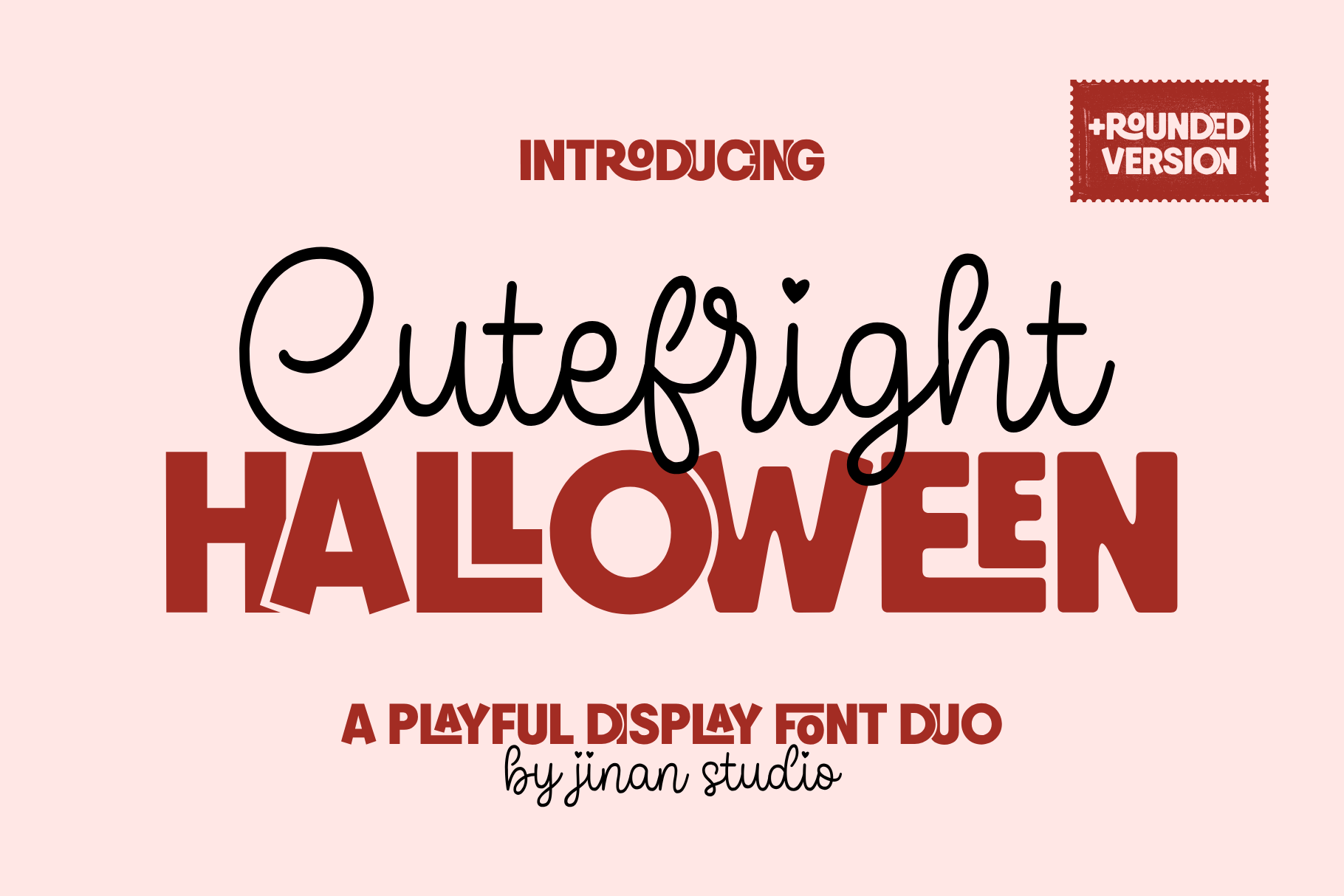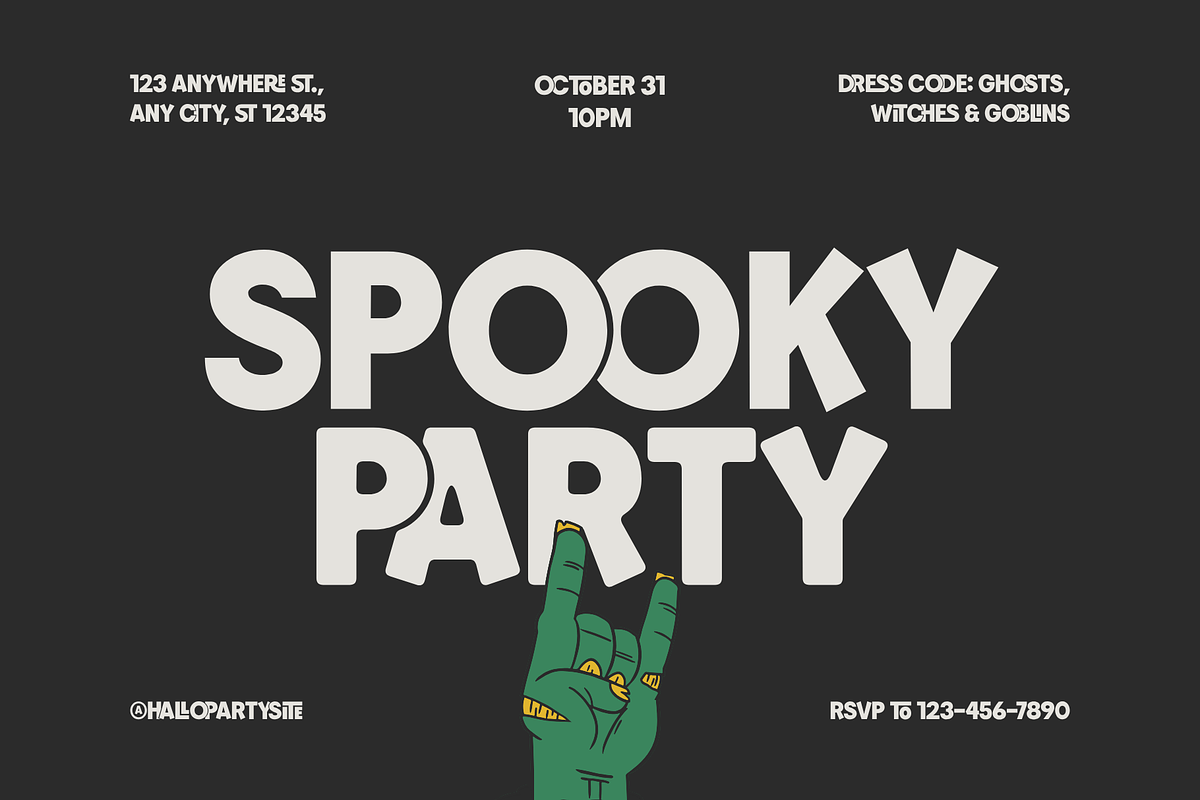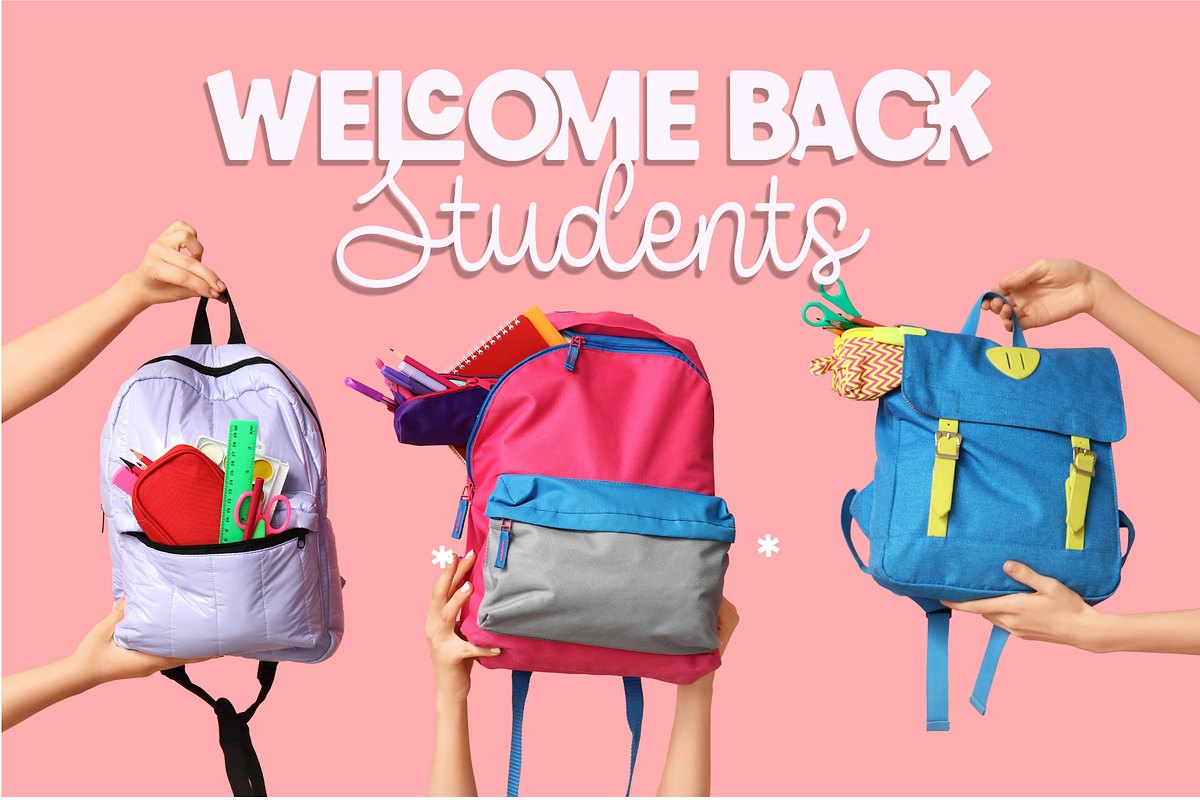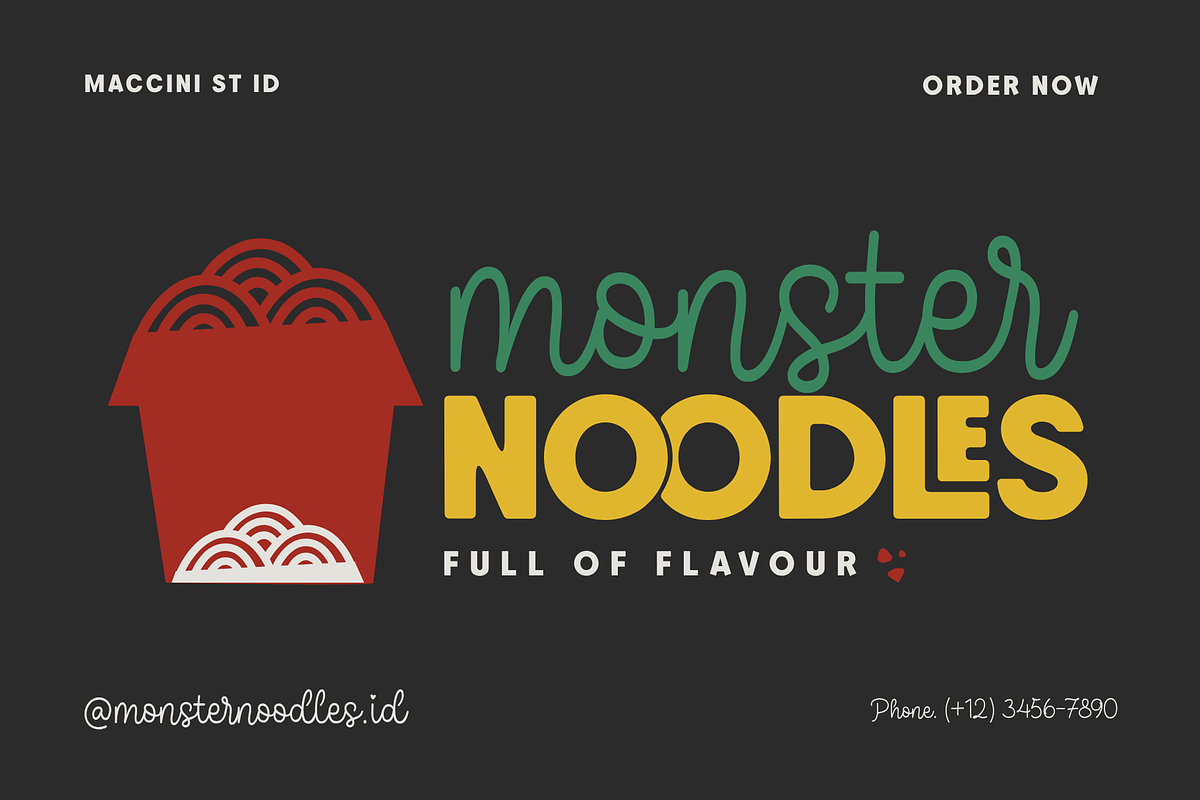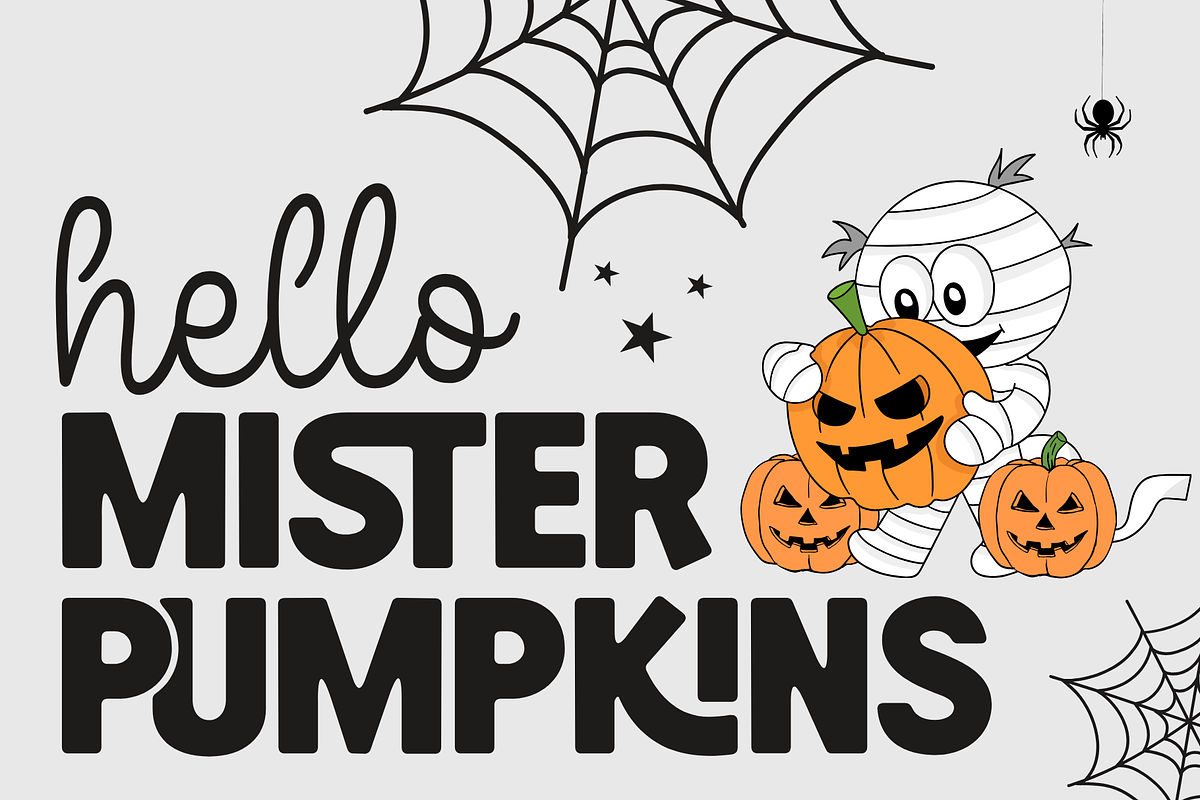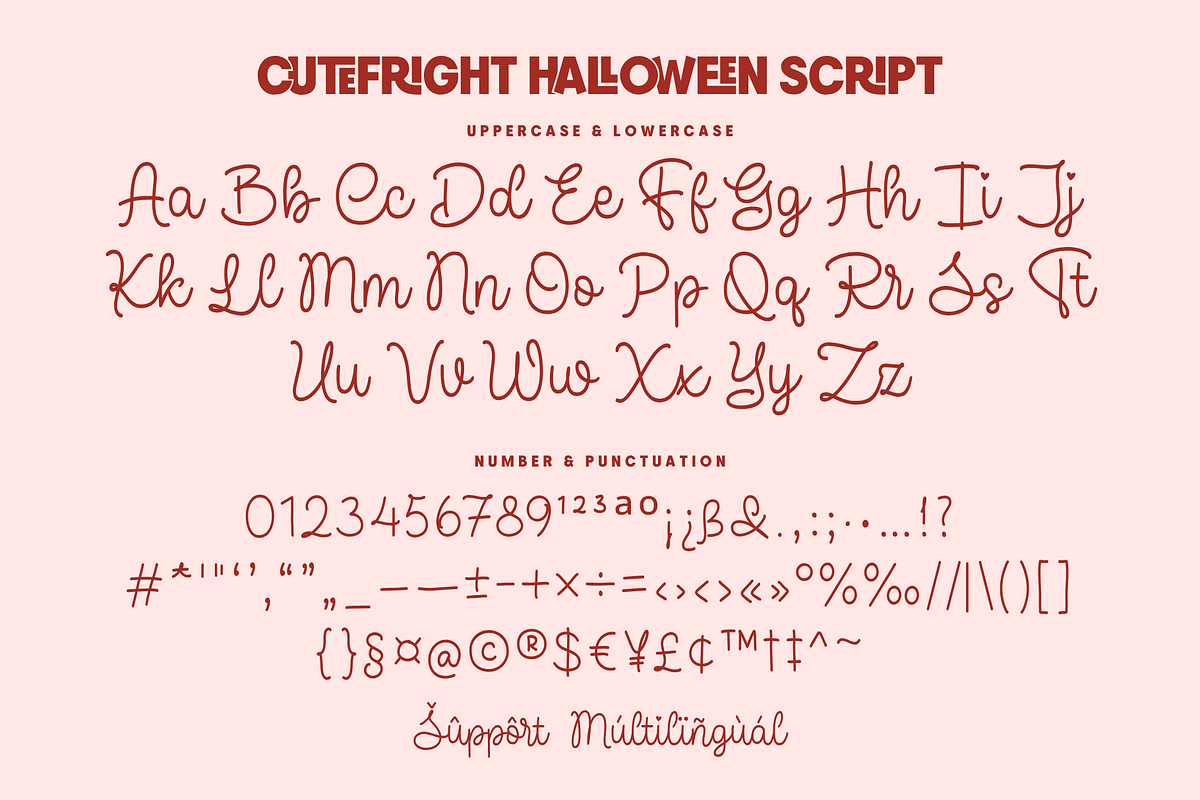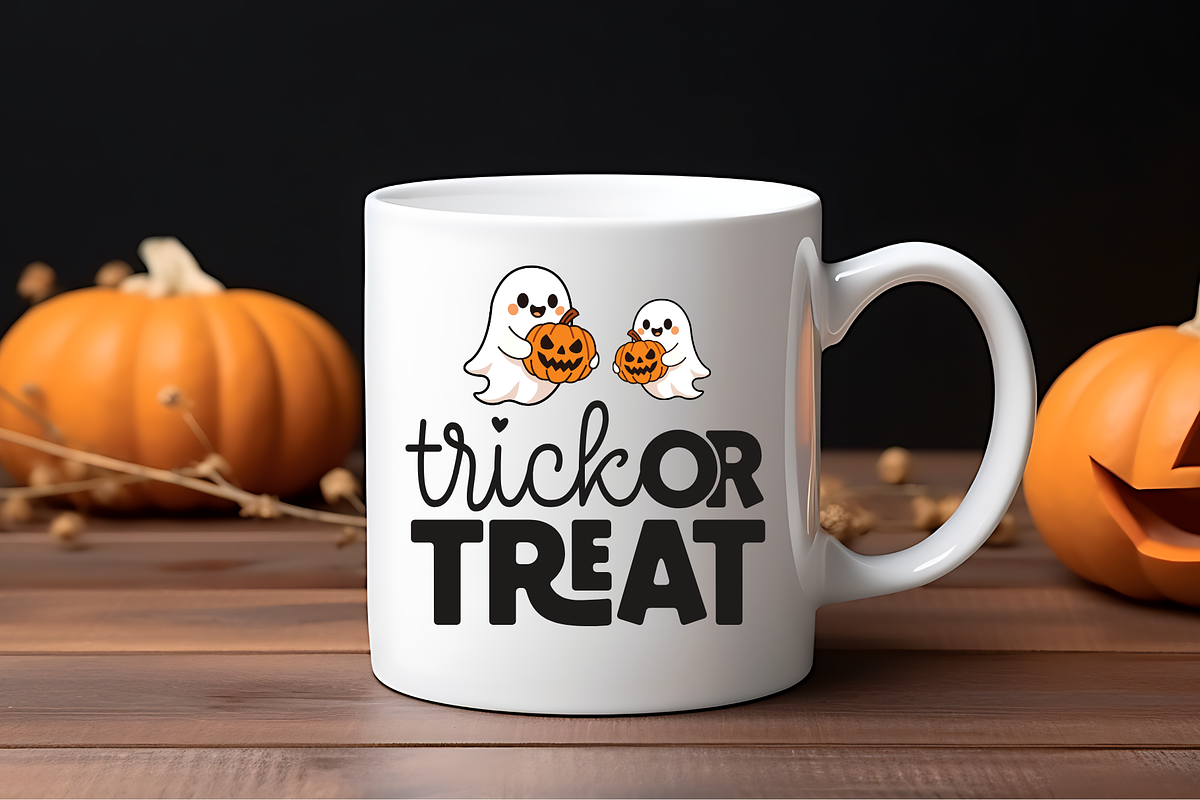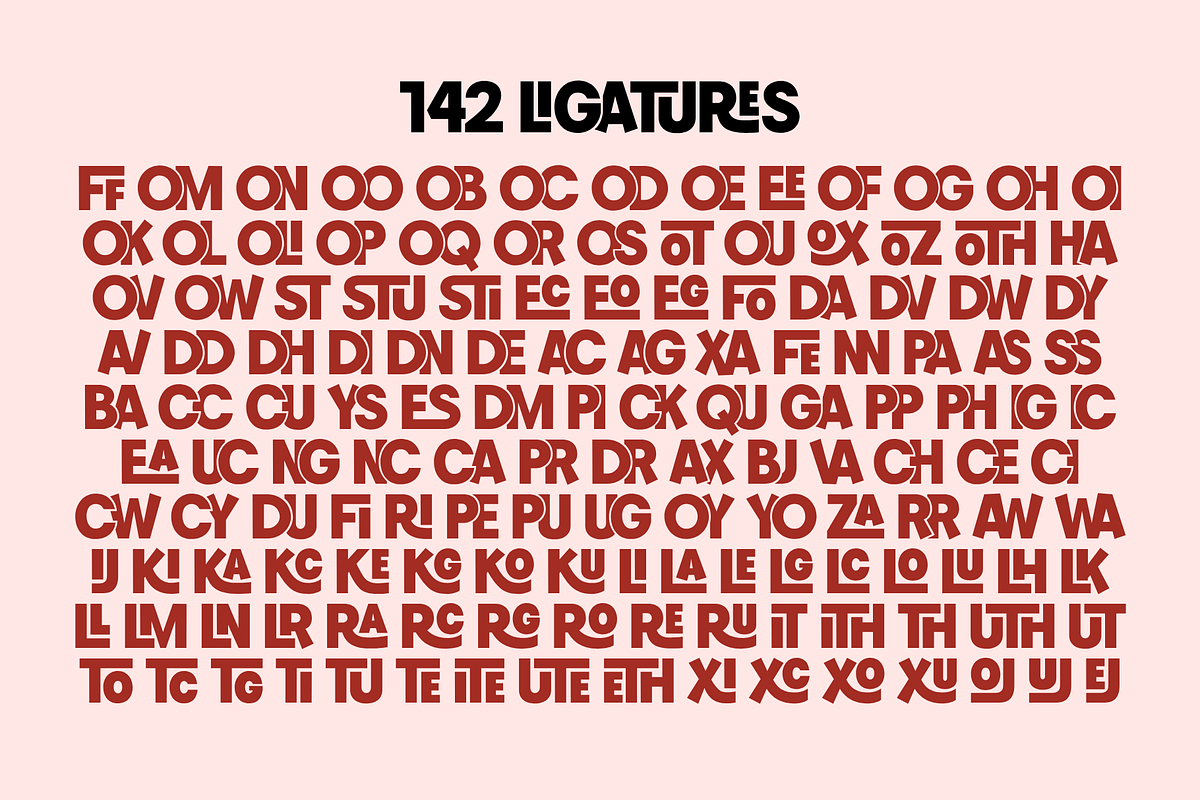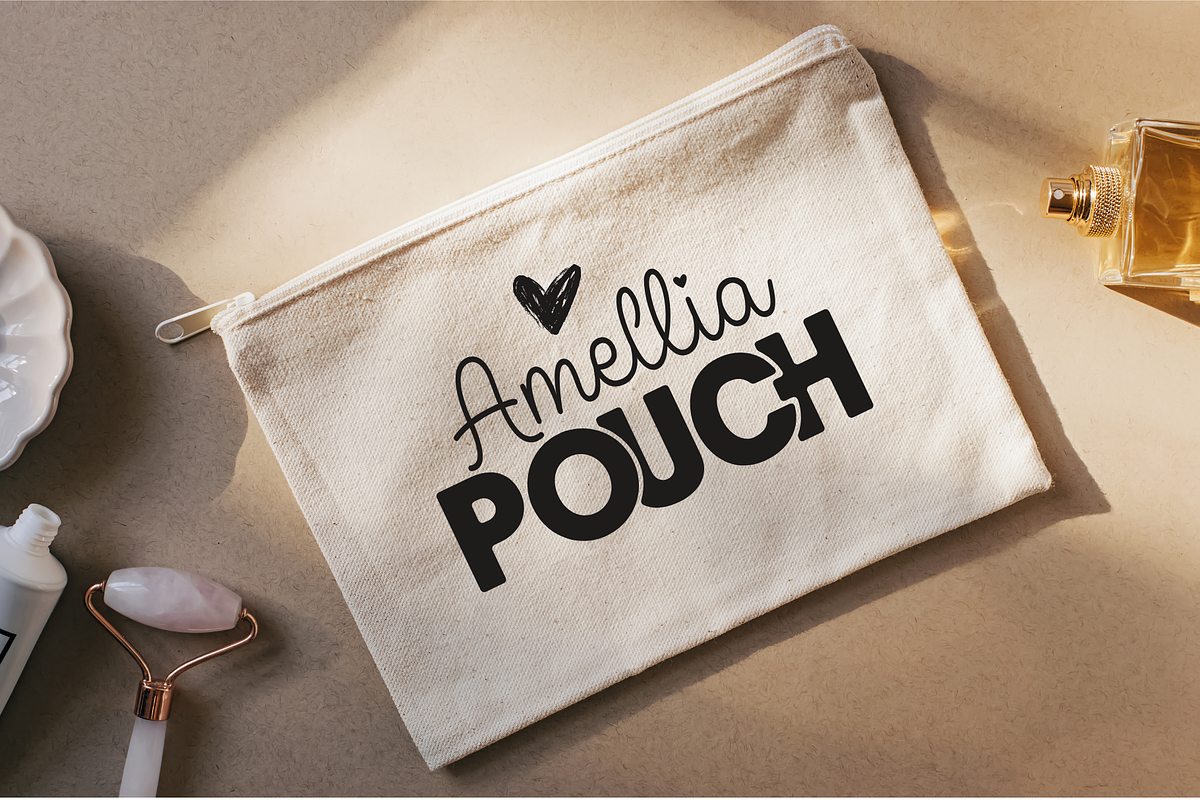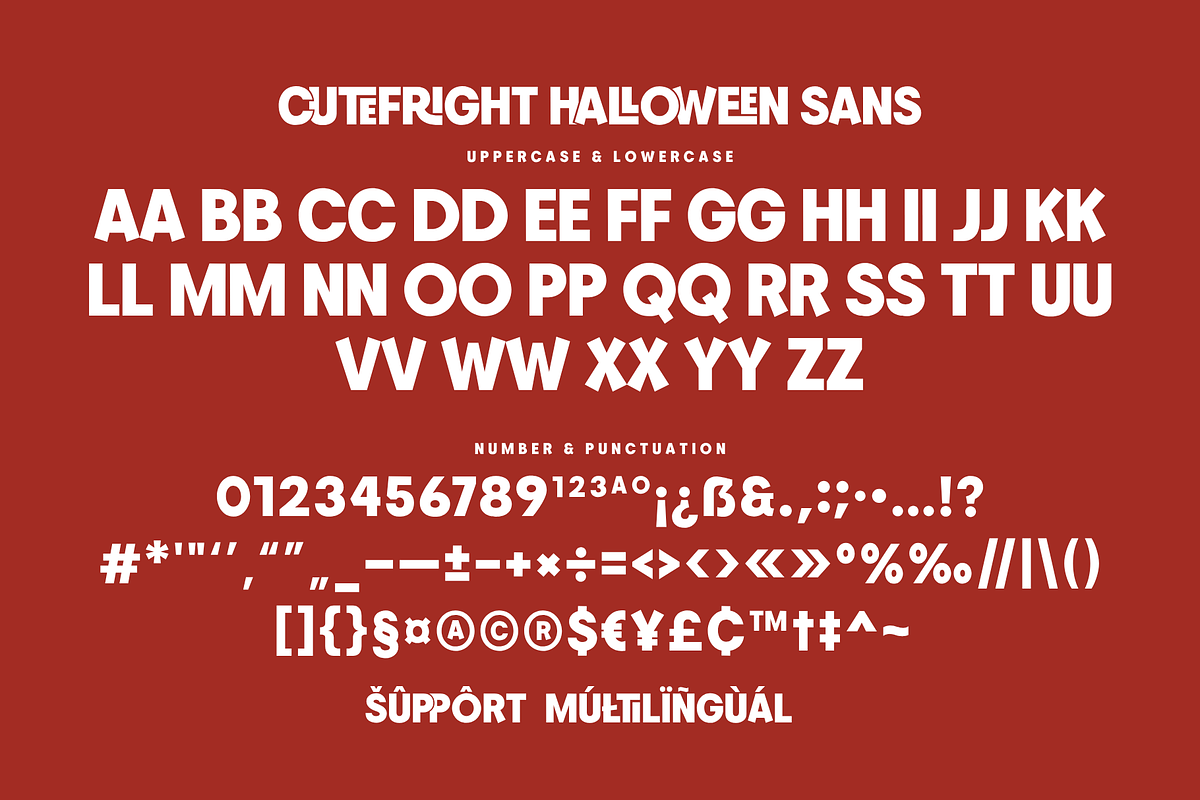
Cutefright Halloween Font Duo
Cutefright Halloween is a playful and eye-catching Halloween font duo that combines a charming handwritten script with a bold, expressive display style. Its fun lettering and spooky-season personality make it perfect for adding a festive touch to Halloween projects while keeping the overall look cute, modern, and approachable.
A set of uppercase and lowercase glyphs (allcaps sans version)
Number, symbol, and punctuation
Rounded Version (sans)
Ligatures will automatically replace the standard letter pairs whenever available, when using any OpenType capable software.